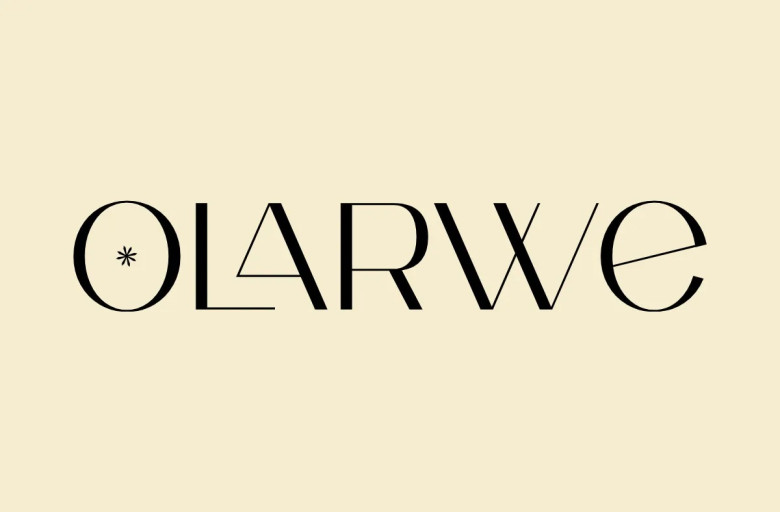
Olarwe Font
Olarwe Font is a modern and elegant look of a sans serif tagline, which made the typeface to have fun browse. Olarwe has nine thickness levels, from light to black, depending on your needs. This font pairs well with san serif and modern script to be pro as shown or stands alone as the representative header and brand for an elegant look.
Olarwe is a pro modern character font, which is perfect to make your company look sleek and attractive from names cards, name tags, uniforms or anything which should represent your brand for business matters as elevation brands. This modern Olarwe typeface is perfect to emboss at any signage as lettering or can use for stickers in your office with elegant-looking cutout appearance.
You may also use this elegant Olarwe shape to make your book covers or magazines articles more attractive. In the screenshot above you can furtherly see all the available characters, please use it for any design issue now with the modern & elegant Olarwe. Moreover, Olarwe is multilingual for any country and language too. It also has Ligatures and alternative styles to make your design more attractive.